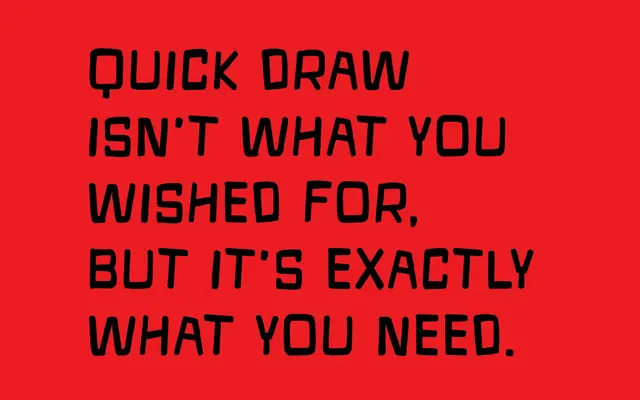
Quick Draw
A single-weight bold display face with a rough, hand-drawn character aimed at headlines, posters and graphic work.
Built for impact at large sizes, it carries a deliberately rough texture that suggests speed and informality. With 166 glyphs and coverage across Western European languages including Icelandic and Welsh, it is broadly serviceable for multilingual display use. At £25 with a flat commercial licence covering most small-business use cases, it sits at the accessible end of the display font market.
A bold, single-weight display face with a rough, hand-drawn character intended for headlines and graphic use; fits squarely in the display category with an expressive, informal subcategory.